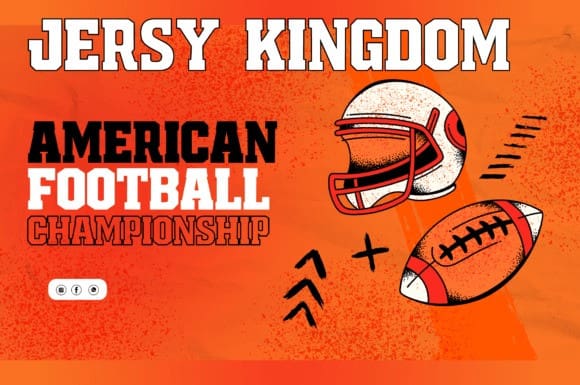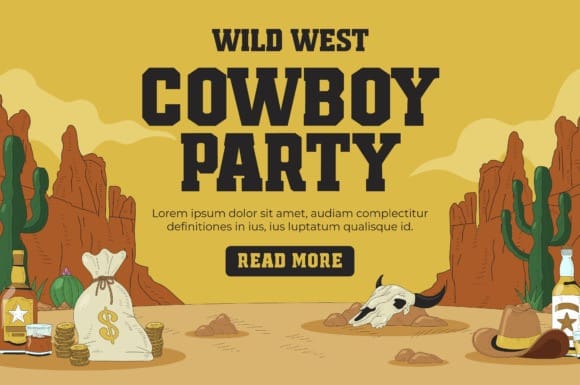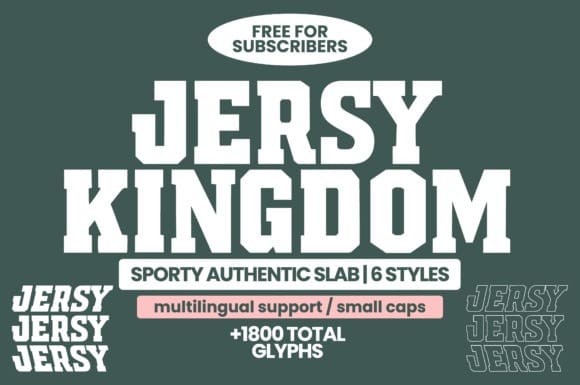
Jersey Kingdom Font
Jersey Kingdom Font -Experience the fusion of athleticism and academia in the unique typeface, Jersey Kingdom. This exclusive font offers six dynamic styles: Regular, Italic, Retalic, Hollow Regular, Hollow Italic, and Hollow Retalic. Each one is a blend of energetic sports vibes and an intellectual campus atmosphere, creating a vibrant competition font that exudes both dynamism and sophistication. The College typeface differentiates itself by perfectly encapsulating and expressing the spirit of sporty robustness and academic elegance. More than just a font, Jersey Kingdom is a fitting homage to the extraordinary realms of sportsmanship and intellectual pursuits. Let your message set itself apart, delivered in the striking flair of our College font.